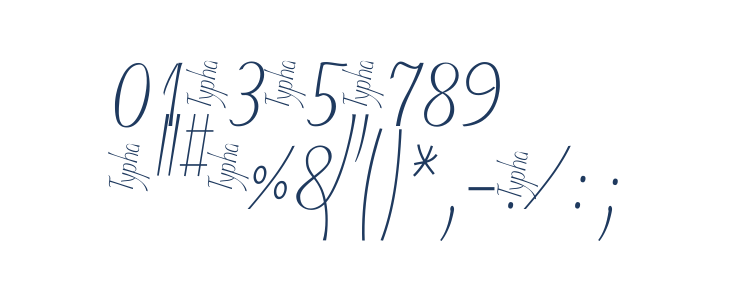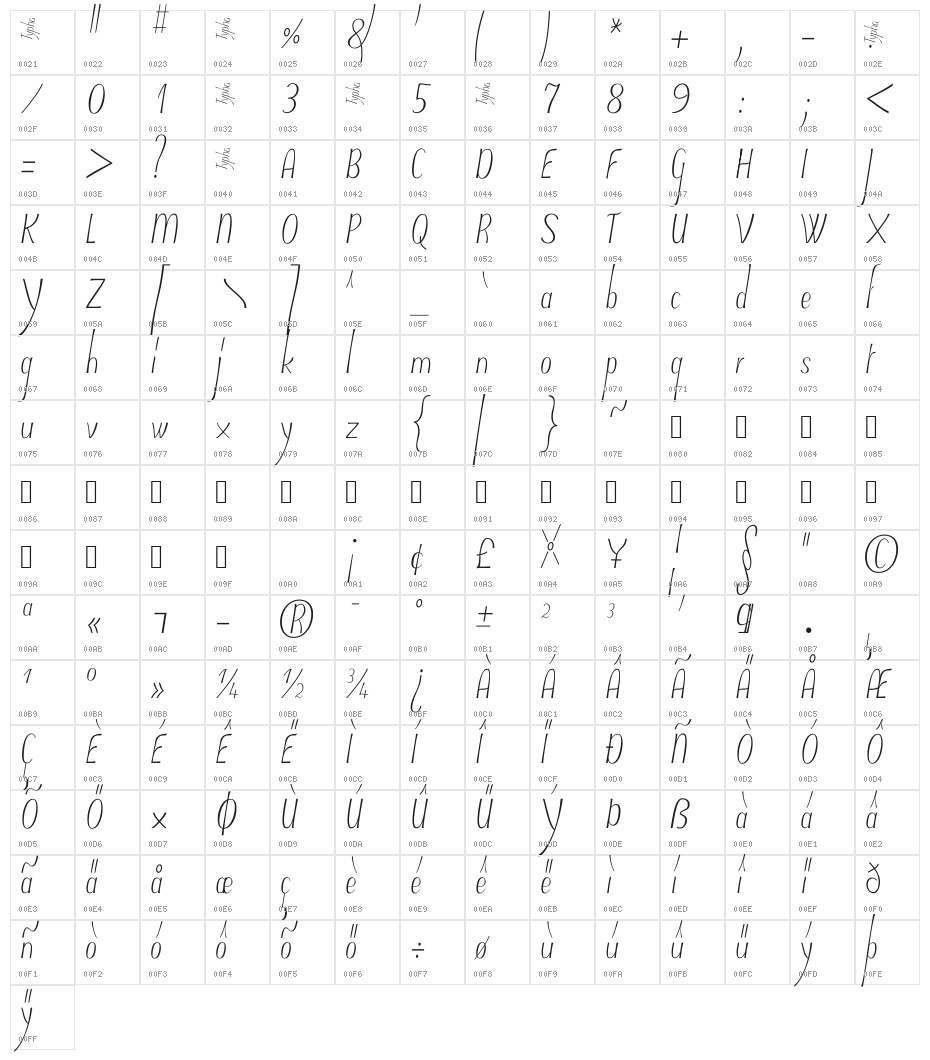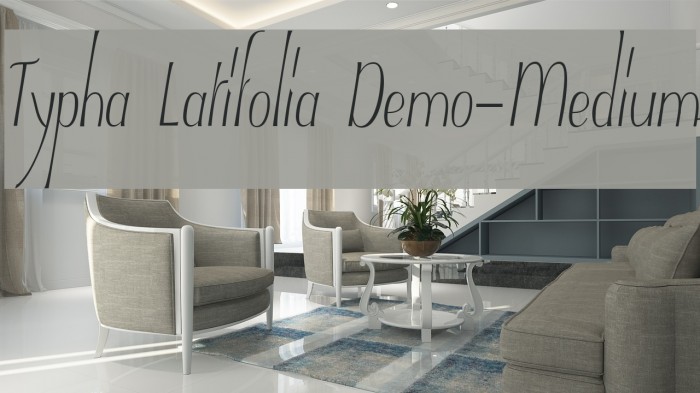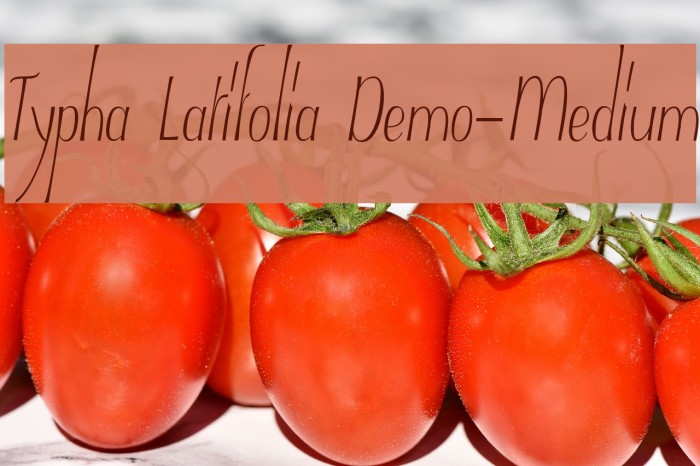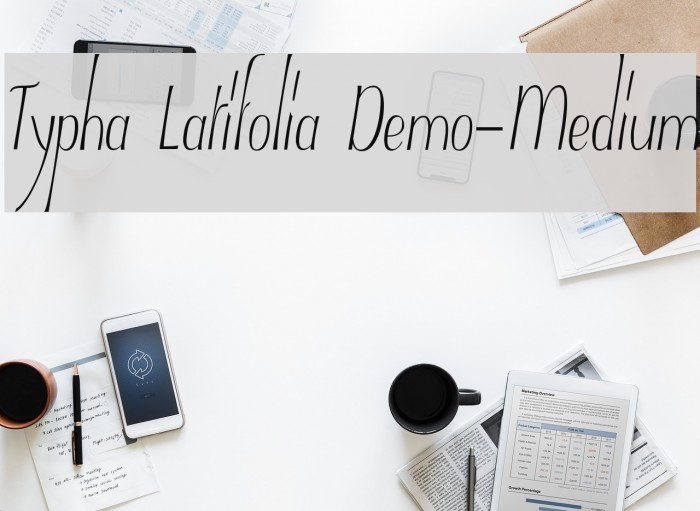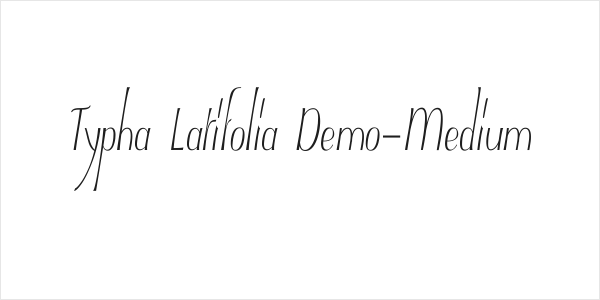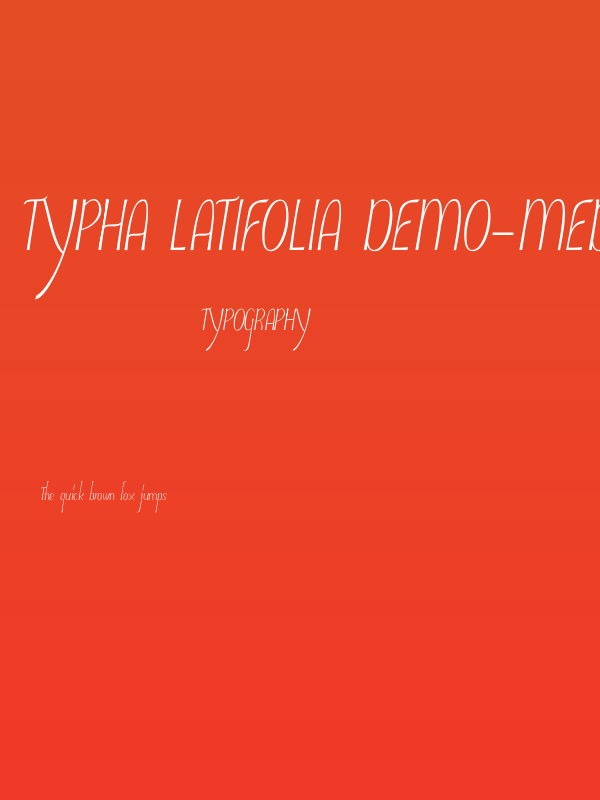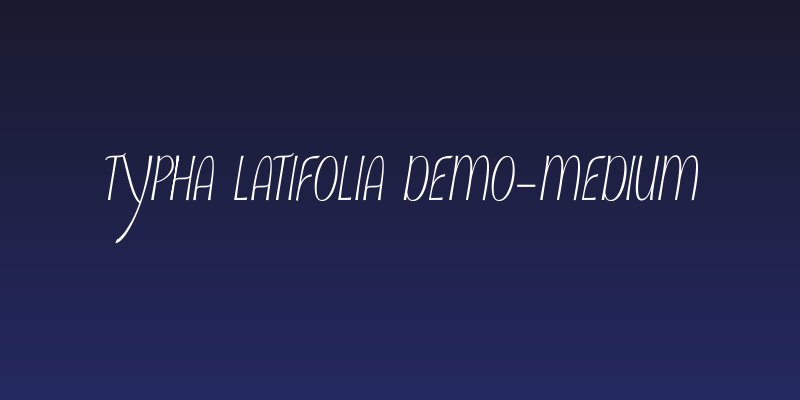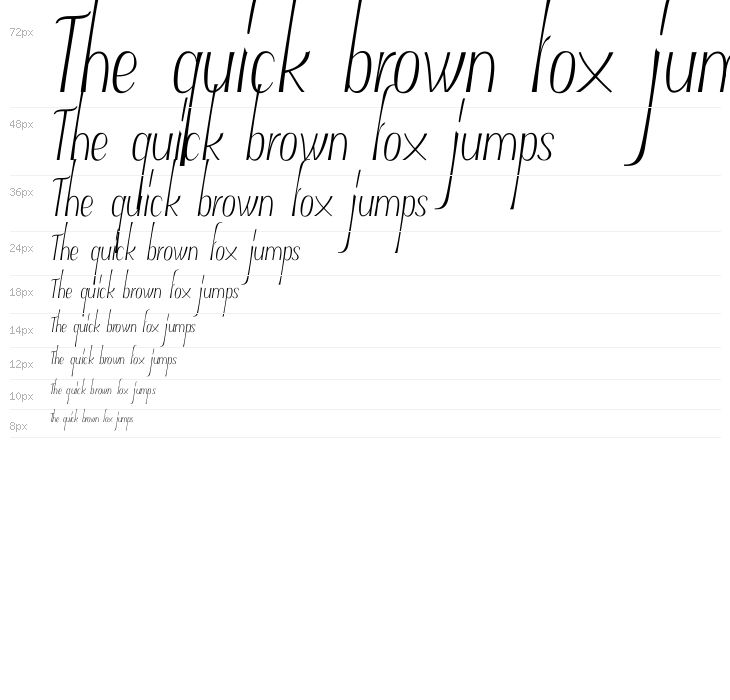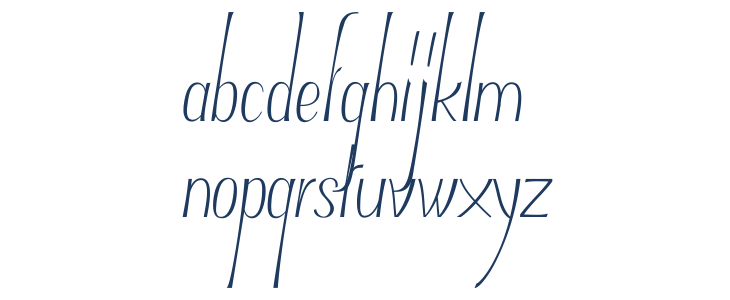
Typha Latifolia Demo-Medium Font
Typha Latifolia Demo-Medium Description
This font features a sleek and modern design with elongated, narrow characters that convey elegance and sophistication. The uppercase letters are tall and slender, while the lowercase letters maintain a consistent style with a slight slant, adding a dynamic feel. The numerals are distinct and maintain the same narrow aesthetic, ensuring readability. Special characters are uniquely styled, complementing the overall design. The font's thin strokes and high contrast give it a refined and contemporary look, making it suitable for various creative applications.
| Use Case | Headlines, Logos, Editorial design |
| Proposed Projects | Ideal for fashion magazines, luxury branding, modern art posters, and elegant invitations. |